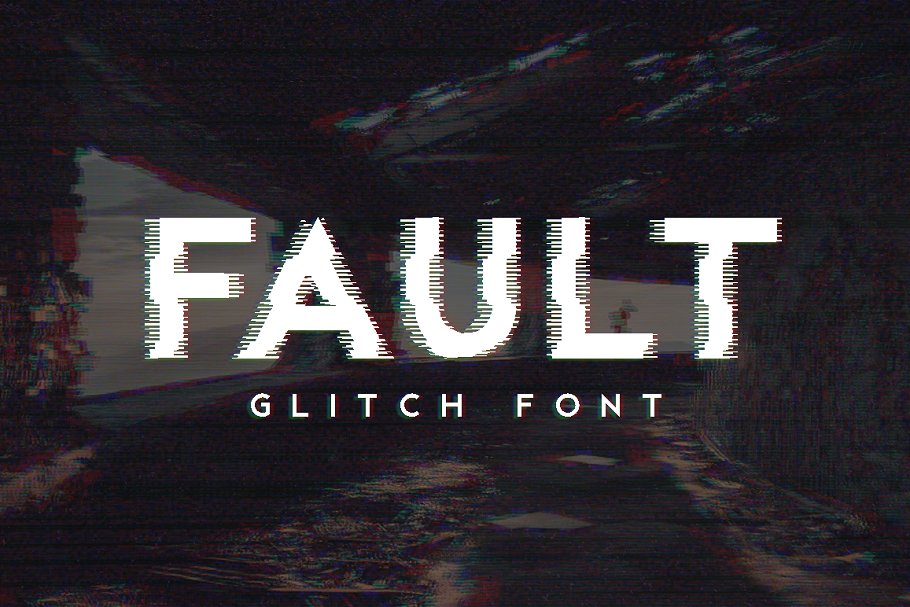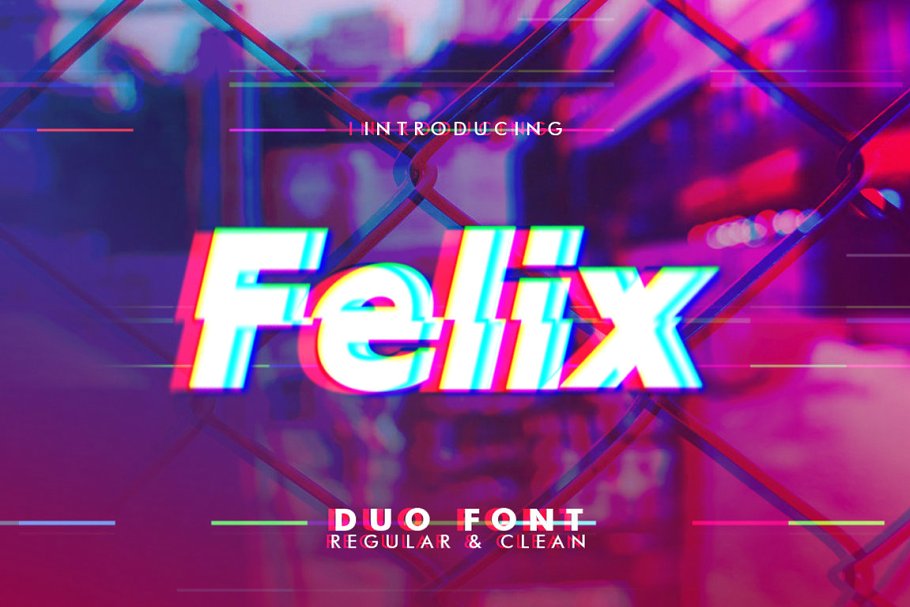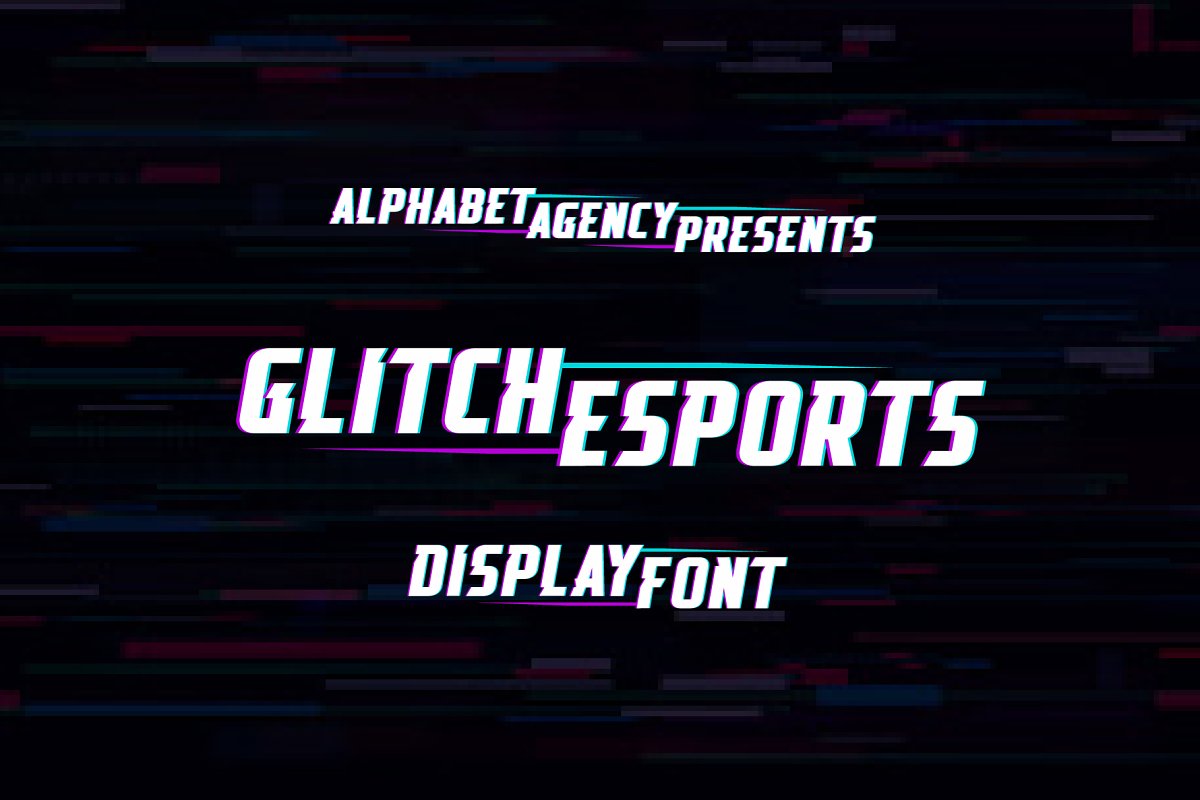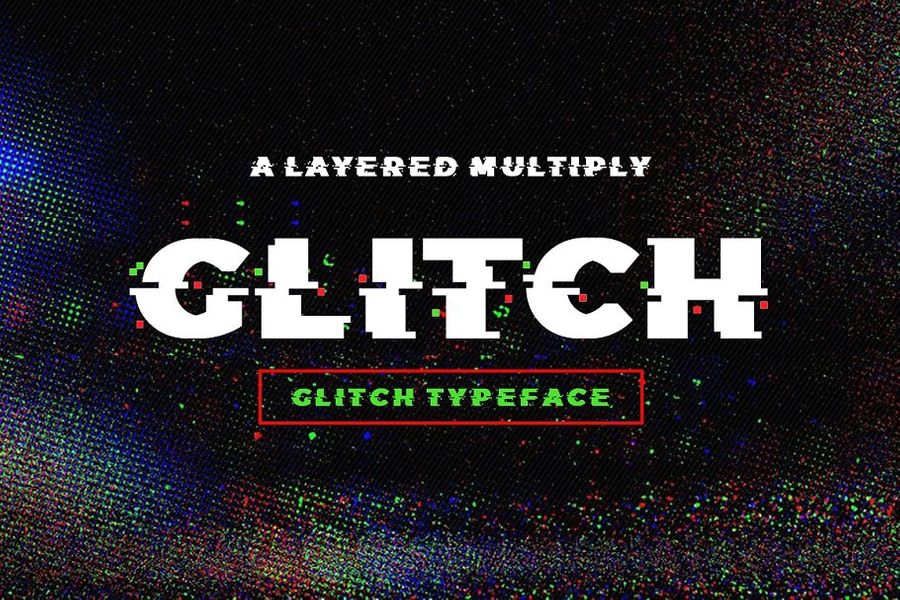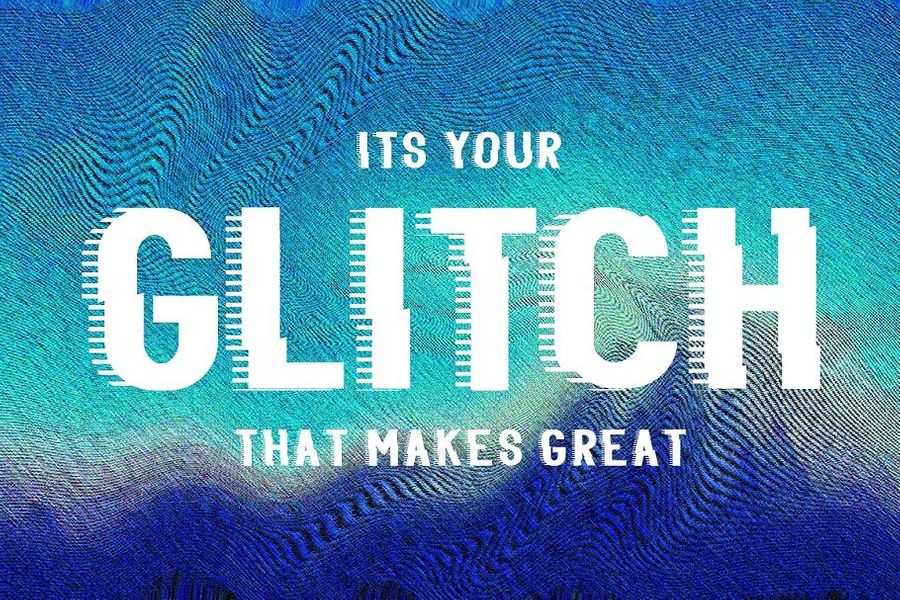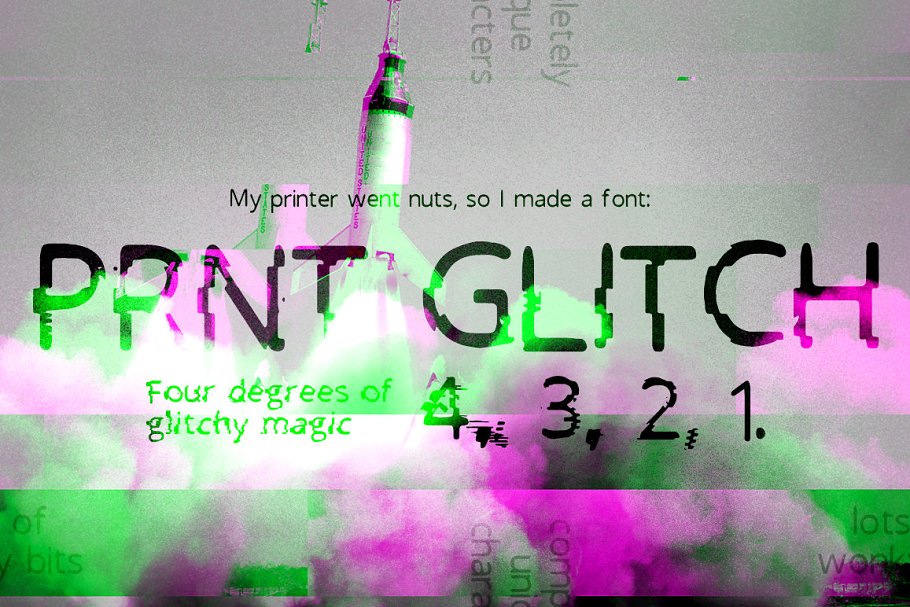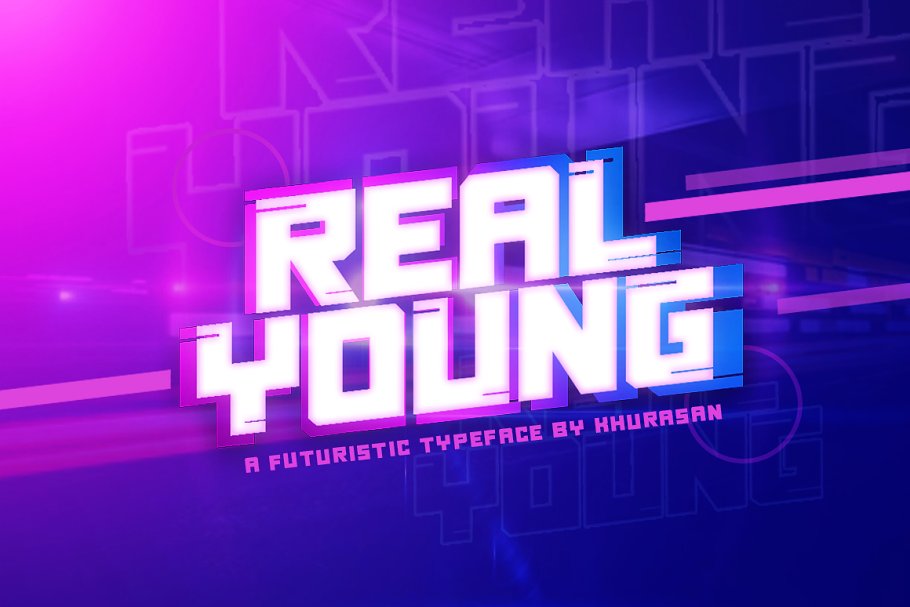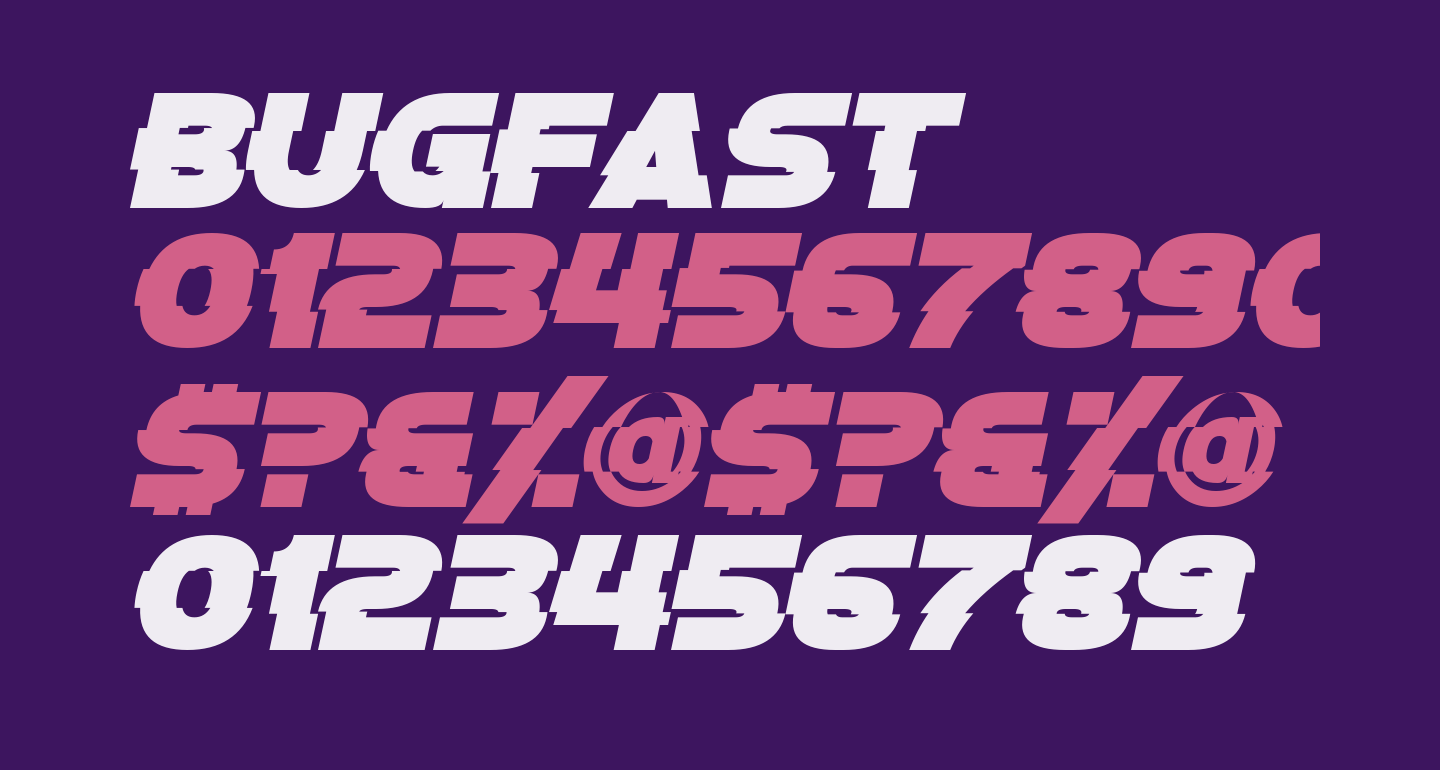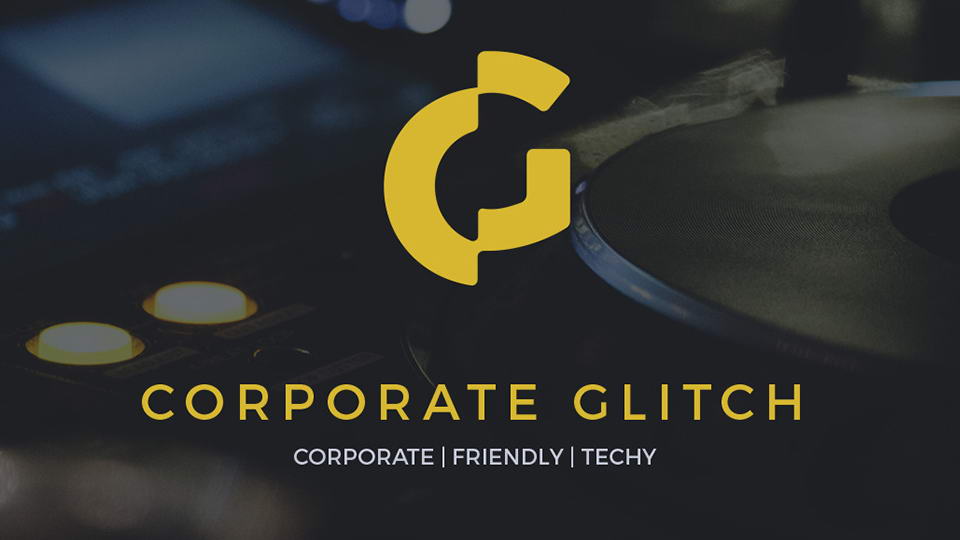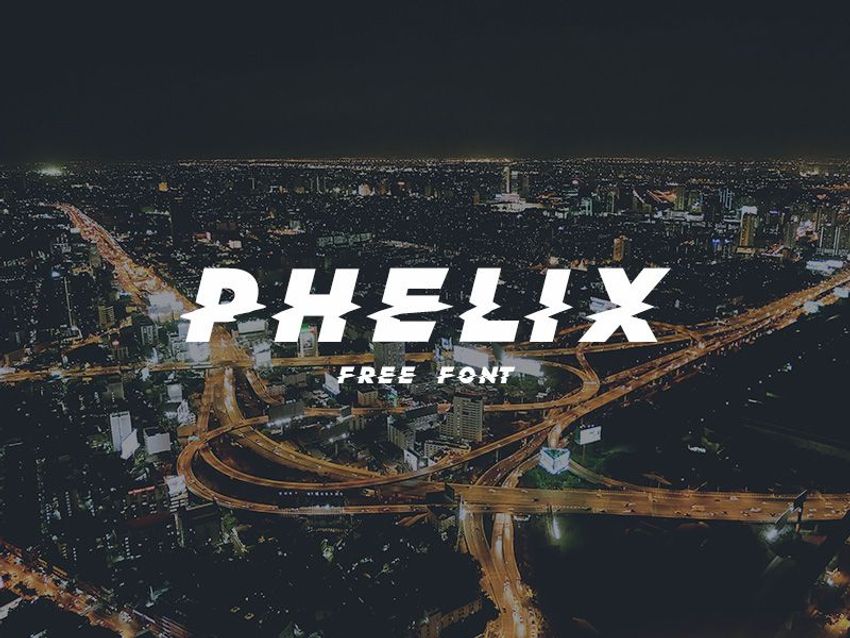
Glitch fonts making your typography design more futuristic and adding a unique effects. The designers loves to use glitch fonts to their projects.
Lucy Glitch
A typeface inspired by a digital failure. A failure can be also a nice one to see. Including simple ligatures, number & punctuation, this typeface can be used for quotes and title. It features uppercase, lowercase, numerals and punctuation.
Fault Glitch Font
Fault is a premium distorted glitch font ideal for gaming, music and movie posters or other graphics. It features all uppercase letters, numbers and common symbols.
Felix Glitch Duo Font
Felix font is a sans serif type of bold and italic type. Felix has two different styles, Felix Regular in the form of horizontal pieces like glitch effect and Felix Clean.
Mokoto Glitch Typeface
Mokoto is an experimental font that gives the appearance of digital glitching effect !! Inspired from modern fonts and slicing image in error system, to create something different and compelling.
Glitchy – A Digital Glitch Font
A Glitch font with a slight cyberpunk feel that is perfect for all kinds of futuristic designs.
Phelix Boomgartner Font
Michal Slovák is the author of the Phelix Boomgartner font. It is an italic display font only uppercase but it’s available for free as OTF, TTF and also vector file.
Glitch Typeface
A bold modern glitch font featuring all uppercase letters and numbers only. Although it does not have any punctuation signs, it is a very useful font to be used on headers.
Prnt Glitch
Playing around and layering the font will give your project all sorts of magical outcomes, and I hate having duplicate styled letters, so each character, in each weight is unique – even the language bits.
Free Corporate Glitch Font
Corporate Glitch is a free font with a twist of corporate and technology mix. It contains all caps letters only. This font is great for logo design and branding.
Free Hacked Font
Hacked free font is a stylized display typeface with glitch effect. It contains uppercase letters, numbers and some symbols.
System Glitch – Dispay / Glitch Font
System Glitch is a detailed glitch style font, that works well for titles, headlines, and large texts in general. All the different glitch “lines” components have been added separately to each letter, number and symbol for a more varied/random result – so all the glyphs are slightly different!
Glitch Esports Display Font
Alphabet Agency presents this super cool new font originally designed for use in e-Sports related projects. Due to the private success, it is now commercially available for you to use.
Glitzy Typeface
Glitzy typeface is a modern font with a glitch effect style. Best for futuristic designs, logos and branding.
Real Young
Introducing, the Real Young font is a sans serif type of bold and italic type. Real Young font it’s perfect for, poster, logo, magazine, cover, banner, tshirt and headers, or even large-scale artwork.
SYZYGY – The Glitch Effect Typograph
Bright and creative SYZYGY typography is perfect for branding, posters and web design. Glitch effect attracts and hypnotises people. Your project won’t be left out of attention. It’s a vector, so you can change colors.
Saberz Font
Saberz font is a sans serif type of bold and italic type. Saberz in the form of horizontal pieces like glitch effect. Saberz font it’s perfect for, poster, logo, magazine, cover, banner, tshirt and headers, or even large-scale artwork.
Free Doctor Glitch Font
Doctor Glitch is an modern font with a glitch effect style. Best for futuristic designs.
Free Bugfast Font
A simple but very useful glitch styled font featuring all uppercase letters, numbers and punctuation with the movement centered on the middle part of the letters for a more controlled design use.